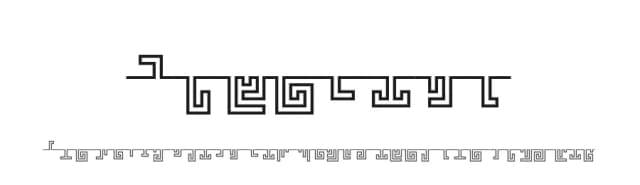
About Enochian Font
Enochian is an occult or angelic language recorded in the private journals of John Dee and his colleague Edward Kelley in late 16th-century England.
Enochian Font is a versatile dingbats font that works for both headings and body text. Pair it with a contrasting sans-serif or serif font to add visual interest and a clear distinction between titles and body copy.
Enochian Font
by Glumbosch